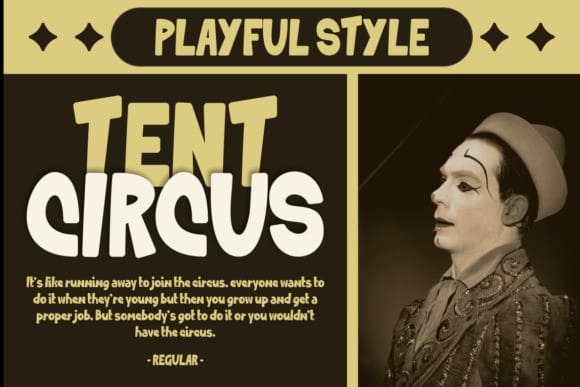
Gokil Guys Font
Gokil Guys Font is a modern display font that brings a bold and trendy vibe to your designs. With its sleek and contemporary style, this font adds a touch of coolness to any project. Perfect for eye-catching headlines, logos, or any creative endeavor, GOKIL GUYS stands out with its modern appeal. Elevate your visual content and capture attention with this stylish and versatile font – it’s the perfect choice for those looking to infuse a dash of modern flair into their work.